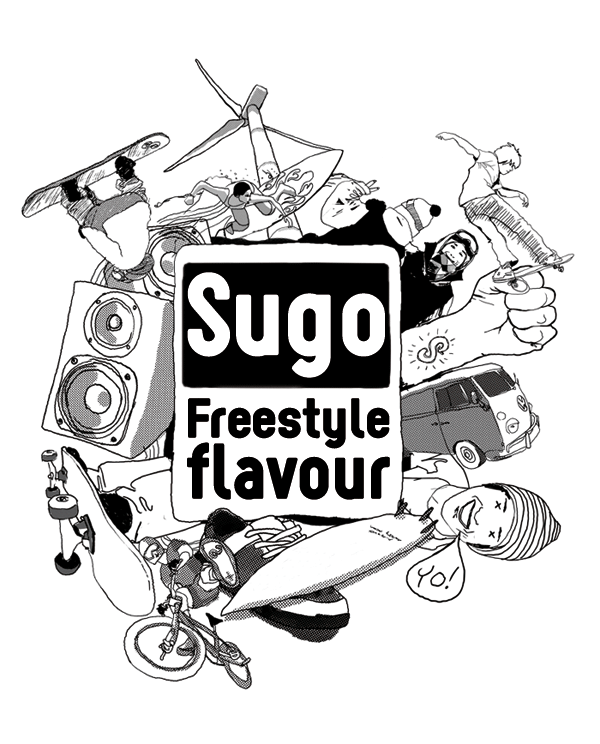
Preview and download Sugo Font. Created by Zetafonts in Basic Sans serif styles with Free for personal use license.
Created for a skateboard shop logo, Sugo is a headline font with a blocky shape, a freestyle finish and a street attitude. Its high readibility and contemporary feel make it the right typeface to mix personality and dynamism. This trial font is TOTALLY FREE for NONCOMMERCIAL USES. For commercial uses you must get the full commercial typeface at: http://www.zetafonts.com/sugo Have a question?: info@zetafonts.com |